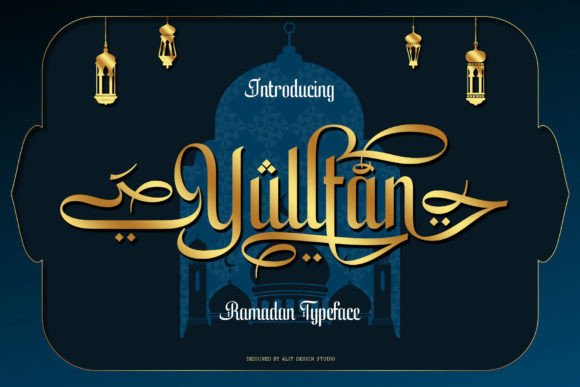
**Step into the Realm of Islamic Elegance with Yulltan Ramadan Typeface**
In a world saturated with mundane fonts, Yulltan Ramadan Typeface emerges as a radiant beacon of Islamic artistry, capturing the essence of religious devotion and cultural heritage.
This meticulously crafted font, the brainchild of Alit Design, is more than just a collection of letters; it's an ode to the sacredness of Ramadan, a testament to the enduring beauty of Islamic art.
**A Tapestry of Religious Expression**
Immerse yourself in the captivating aura of Yulltan Ramadan Typeface, a font family that evokes the serene spirituality of the holiest month in the Islamic calendar. Each letterform is imbued with a delicate grace, echoing the architectural splendor of mosques and the intricate patterns of Islamic calligraphy.
With Yulltan Ramadan Typeface, your designs will transcend the ordinary, becoming vessels of religious expression and cultural pride. Whether you're creating invitations for Ramadan gatherings, designing promotional materials for Islamic events, or simply seeking a touch of spiritual elegance in your personal projects, this font is your divine companion.
**Unleash Your Creativity with Endless Possibilities**
Yulltan Ramadan Typeface is a versatile font that seamlessly blends tradition with modernity, allowing you to explore a boundless spectrum of creative possibilities. Its meticulously designed characters dance across the screen, captivating your audience with their inherent beauty and cultural depth.
Design eye-catching logos that radiate Islamic charm, craft social media posts that resonate with religious fervor, or create stunning flyers and brochures that embody the spirit of Ramadan. With Yulltan Ramadan Typeface, your designs will leave an indelible mark on the hearts and minds of your audience.
**A PUA-Encoded Masterpiece for Seamless Design Integration**
Experience the seamless joy of font integration with Yulltan Ramadan Typeface's PUA encoding. This innovative feature enables effortless access to all glyphs and swashes, empowering you to unleash your creativity without technical hindrances.
Say goodbye to tedious character mapping and embrace the fluid elegance of Yulltan Ramadan Typeface. Whether you're a seasoned designer or just starting your creative journey, this font's user-friendly design ensures a smooth and enjoyable experience.